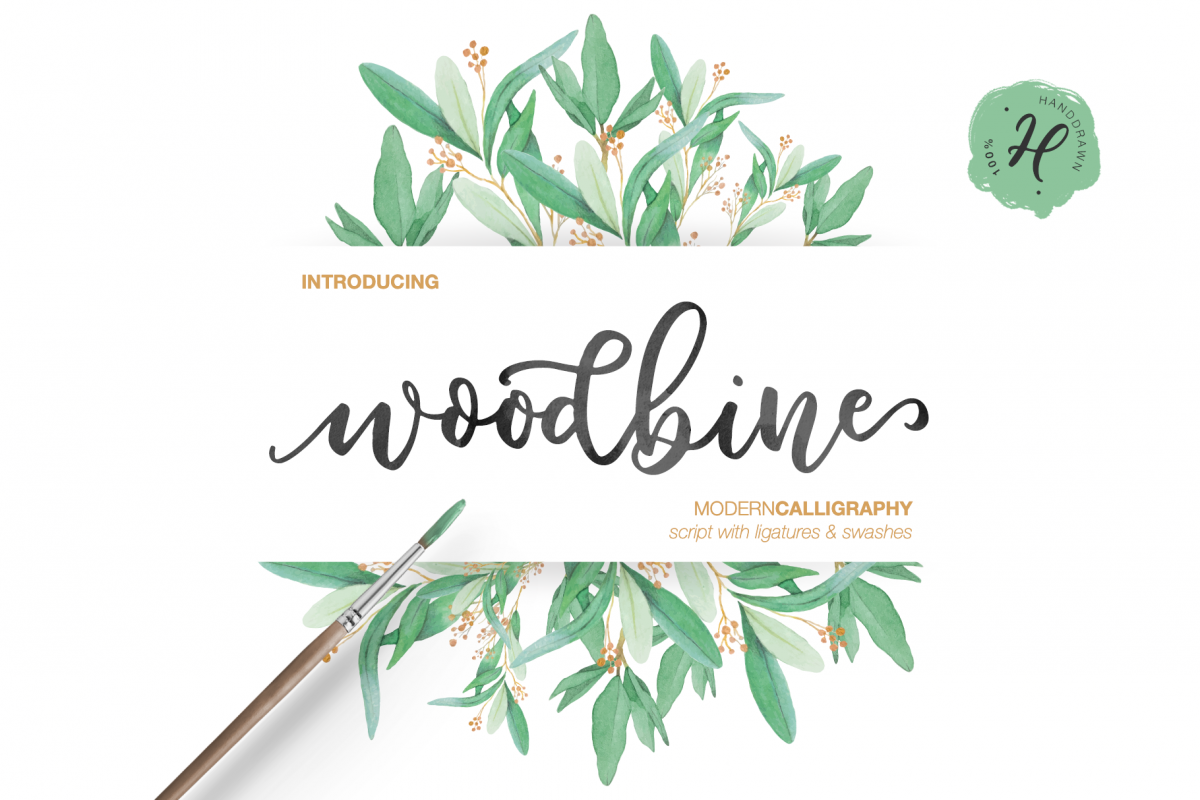
WOODBINE handwritten font TRIO
Woodbine-Script
Woodbine-Alt
Woodbine-Swashes
Another variation on the theme of Modern Calligraphy. This time you will get 3 headsets: script, alternative headset, swashes. And a feast for beginners, all headsets are available by simple font switching. You do not need special programs, everything will work in any even the simplest text editor :)
• Support ALL European Languages